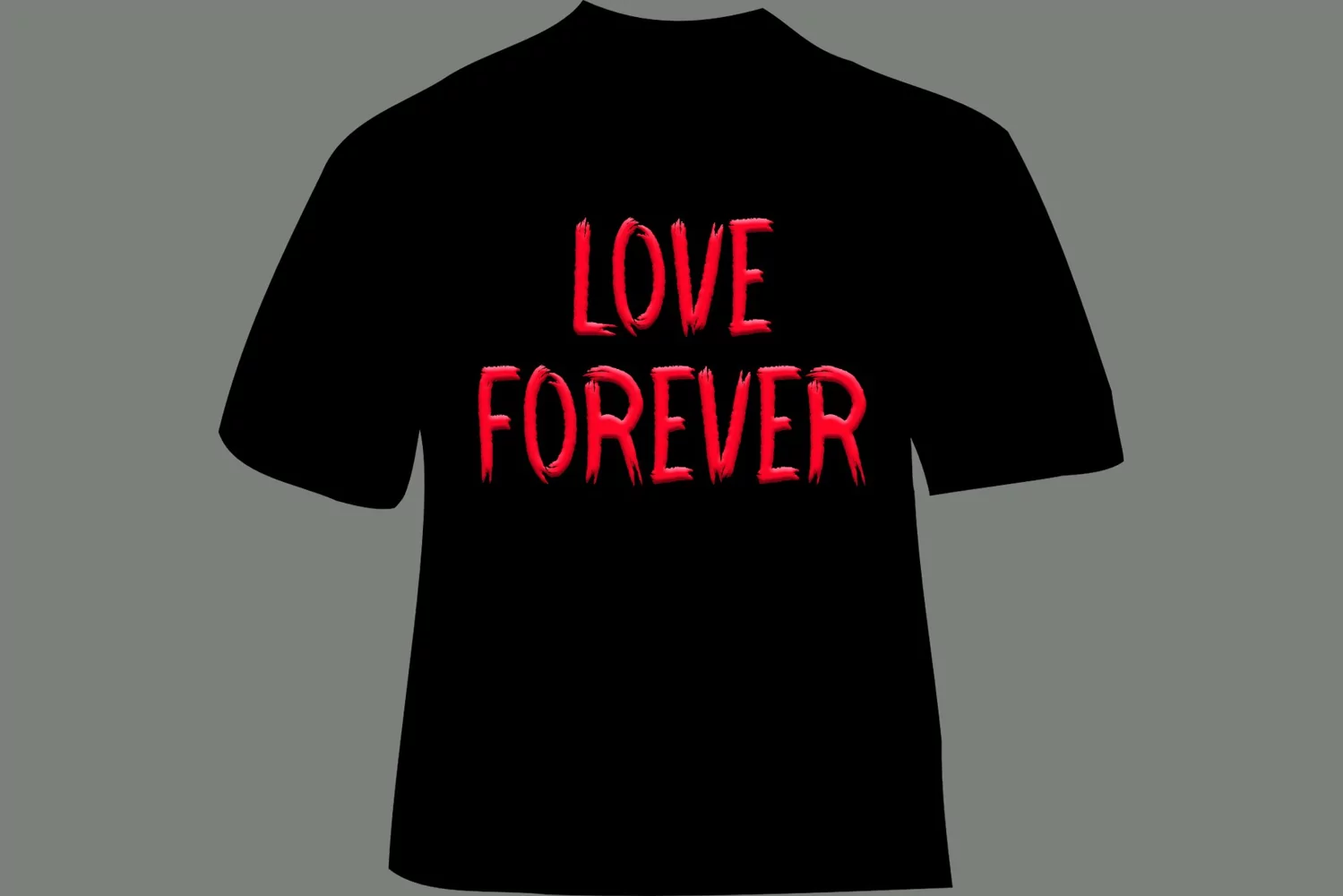
Fall Time - Script Fonts / Brush
Introducing, this is our newest product, we call this product Fall Time - Script Fonts / Brush,
It looks amazing with sweet touches and beautiful curves in each letter. Fall Time - Script Fonts / Brush fonts are perfect for: wedding invitations, fashion magazines, logos, signatures, photography, watermarks, wall displays, social media,